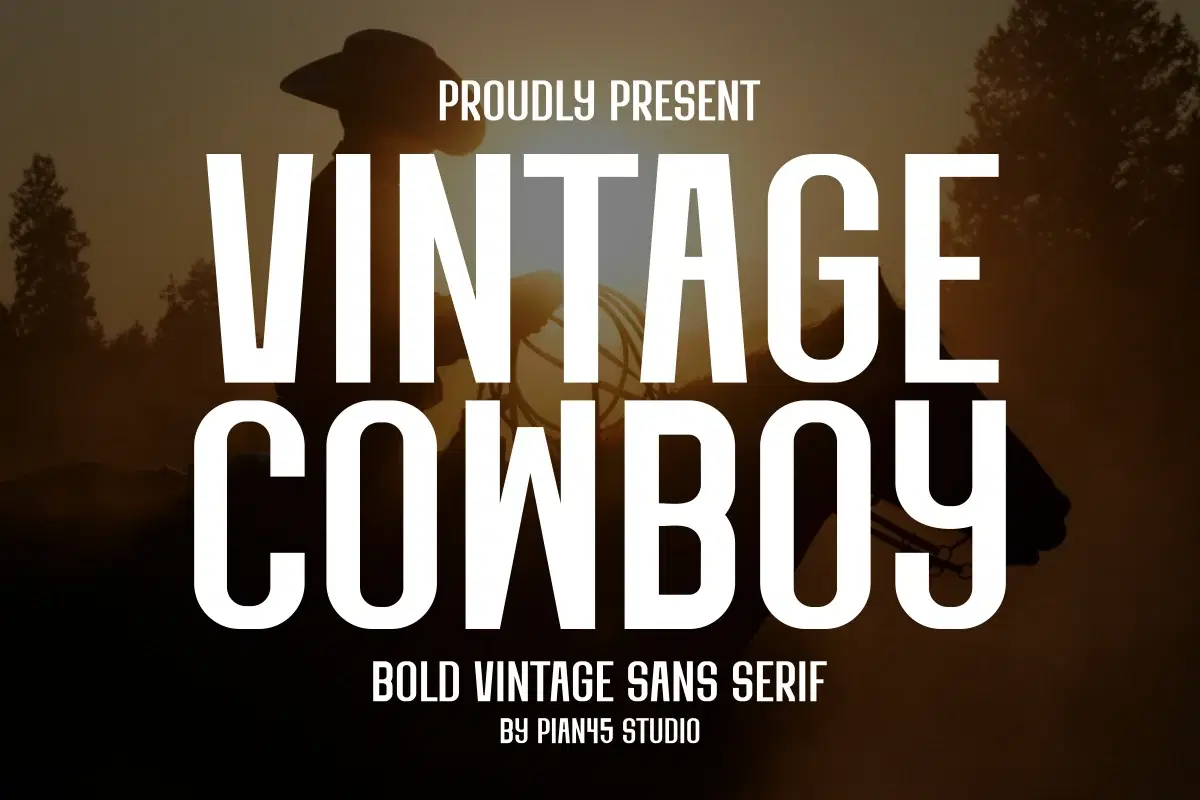
Vintage Cowboy is a powerful and assertive bold vintage sans serif font with a strong, authentic Western feel. This all-caps display typeface is perfect for projects requiring a rustic, adventurous, or traditional American aesthetic. Use it to create eye-catching designs for bar and saloon signage, whiskey labels, apparel, Western-themed branding, logos, and poster headlines. Its solid, retro look provides a genuine sense of history and rugged appeal. Download this versatile bold display font to capture the spirit of the Old West.